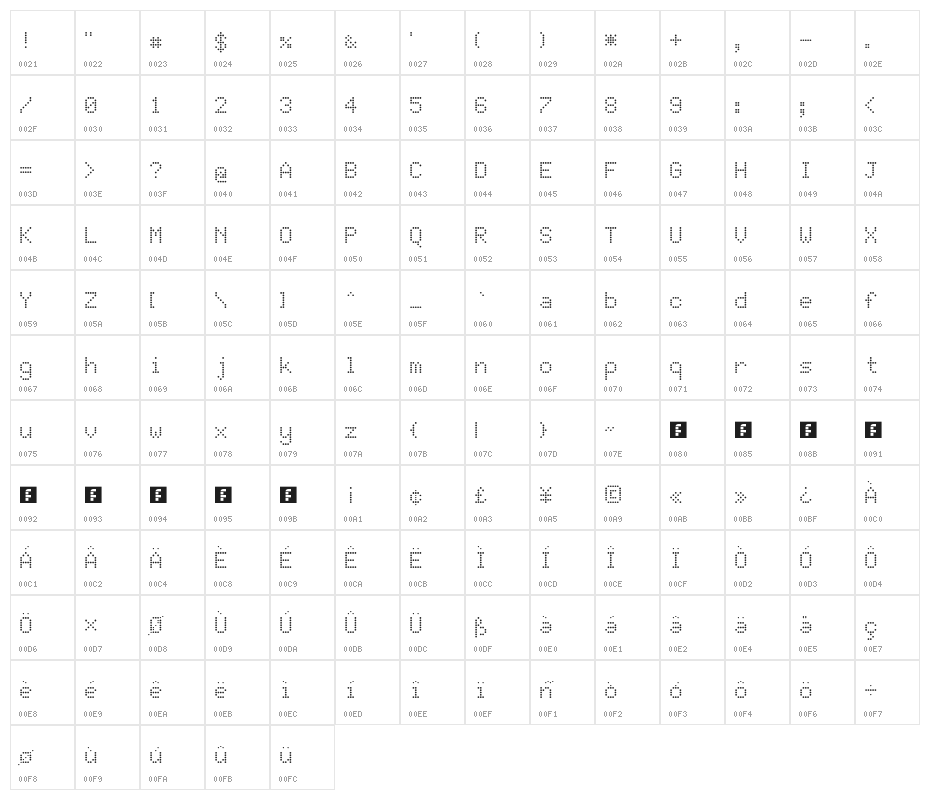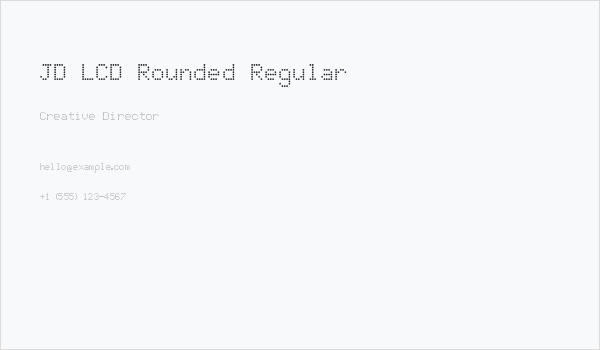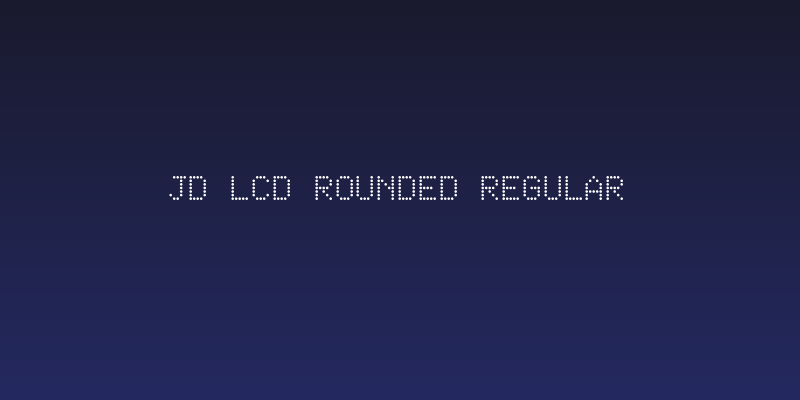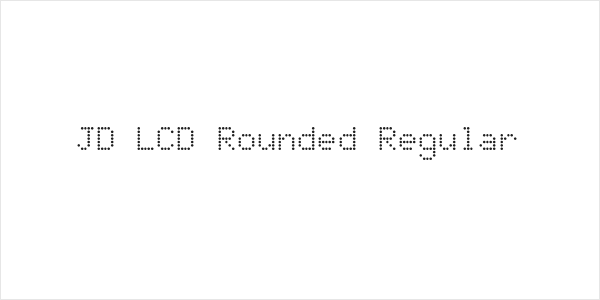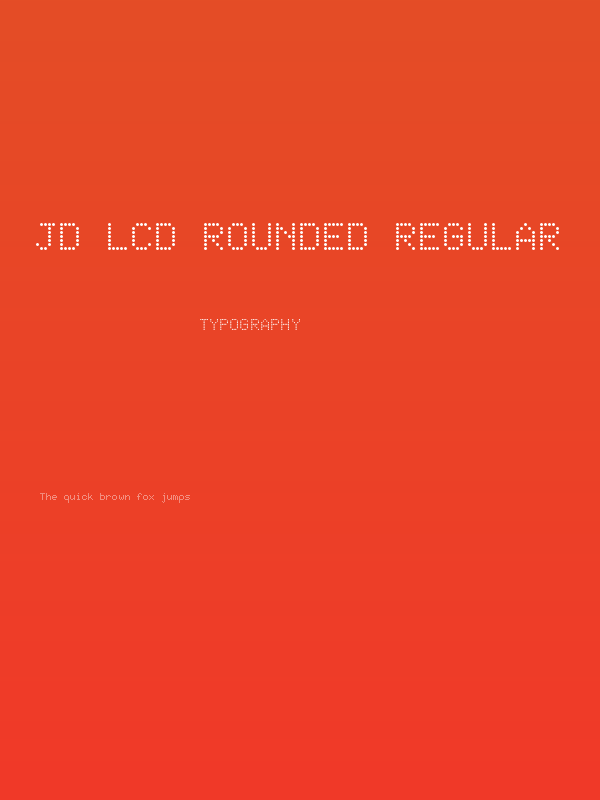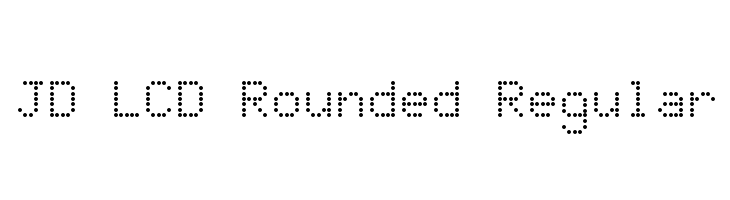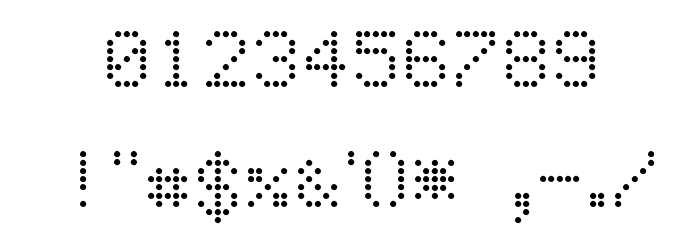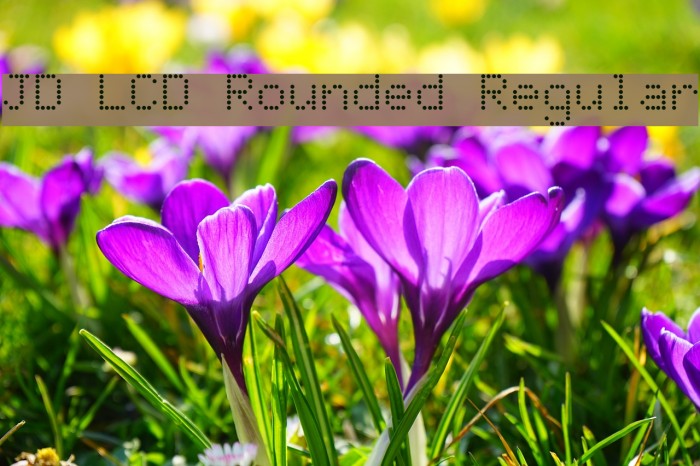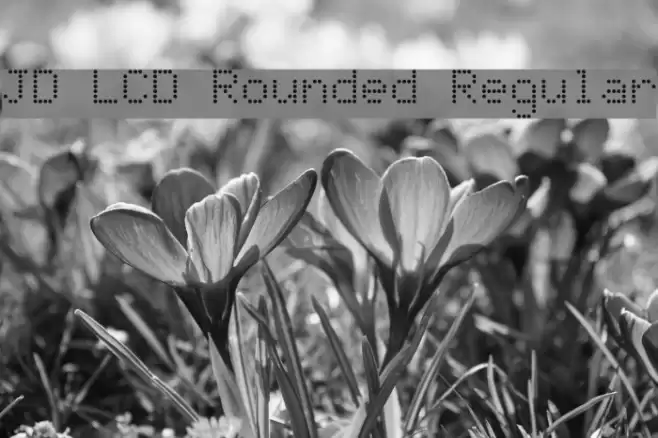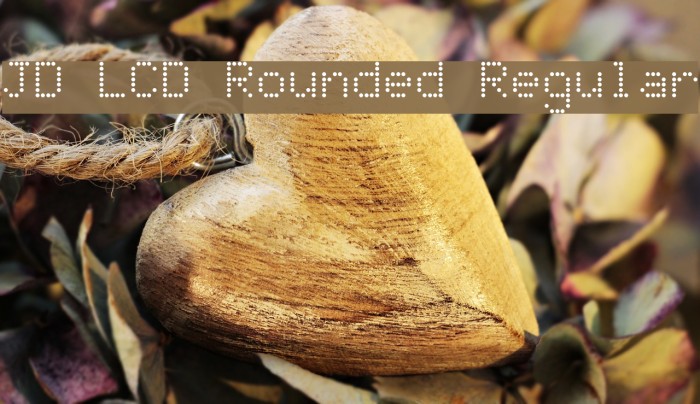
JD LCD Rounded Regular Font
| 用途 | Headlines, Logos, Digital displays |
| おすすめプロジェクト | Ideal for digital displays, tech-themed designs, retro-futuristic projects, and branding for technology companies. |